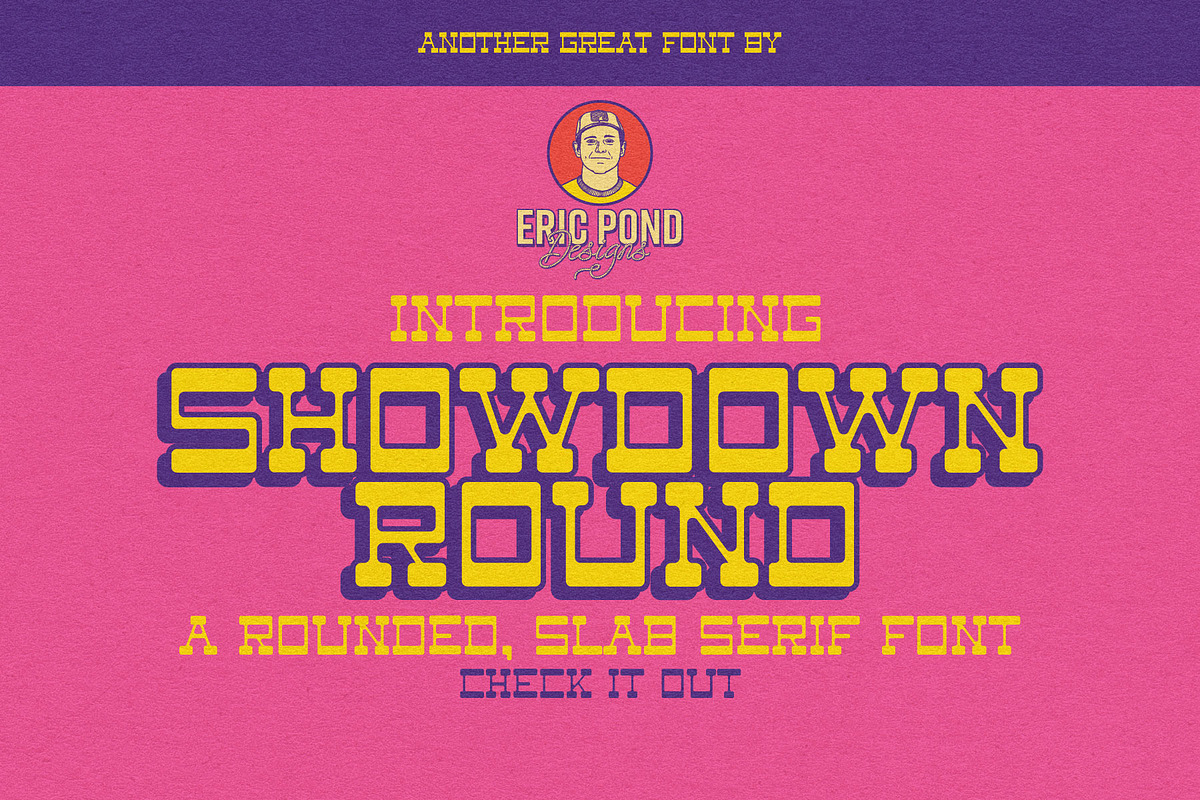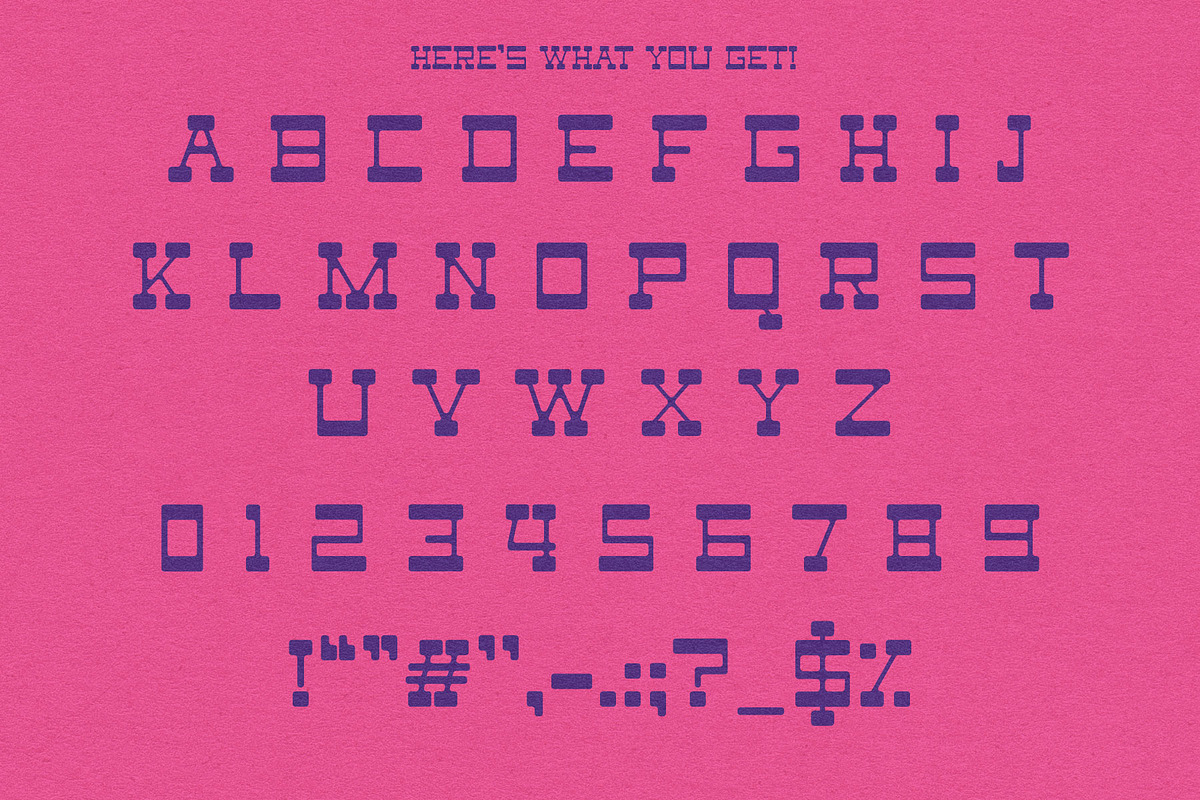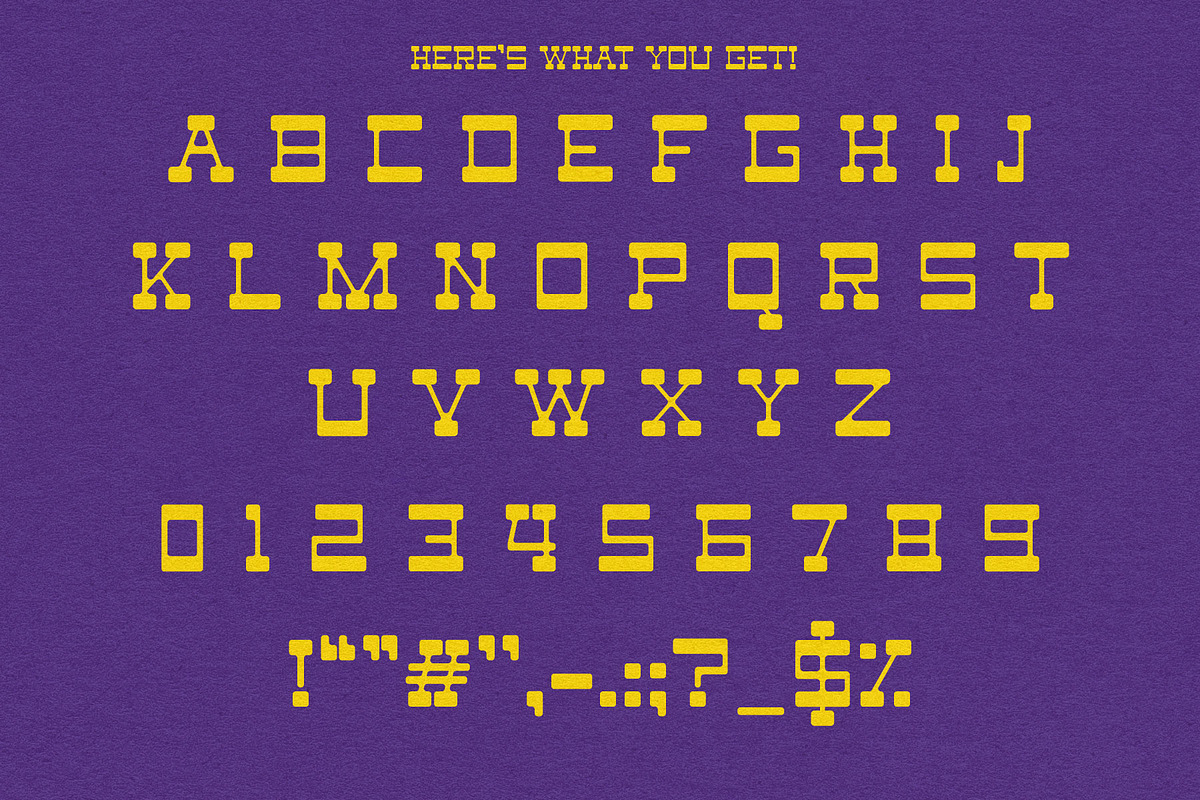
Showdown Round by Eric Pond Designs
Introducing Showdown Rounded - A Rounded Slab Serif font by Eric Pond Designs! Showdown Rounded features uppercase, numbers and some punctuation.